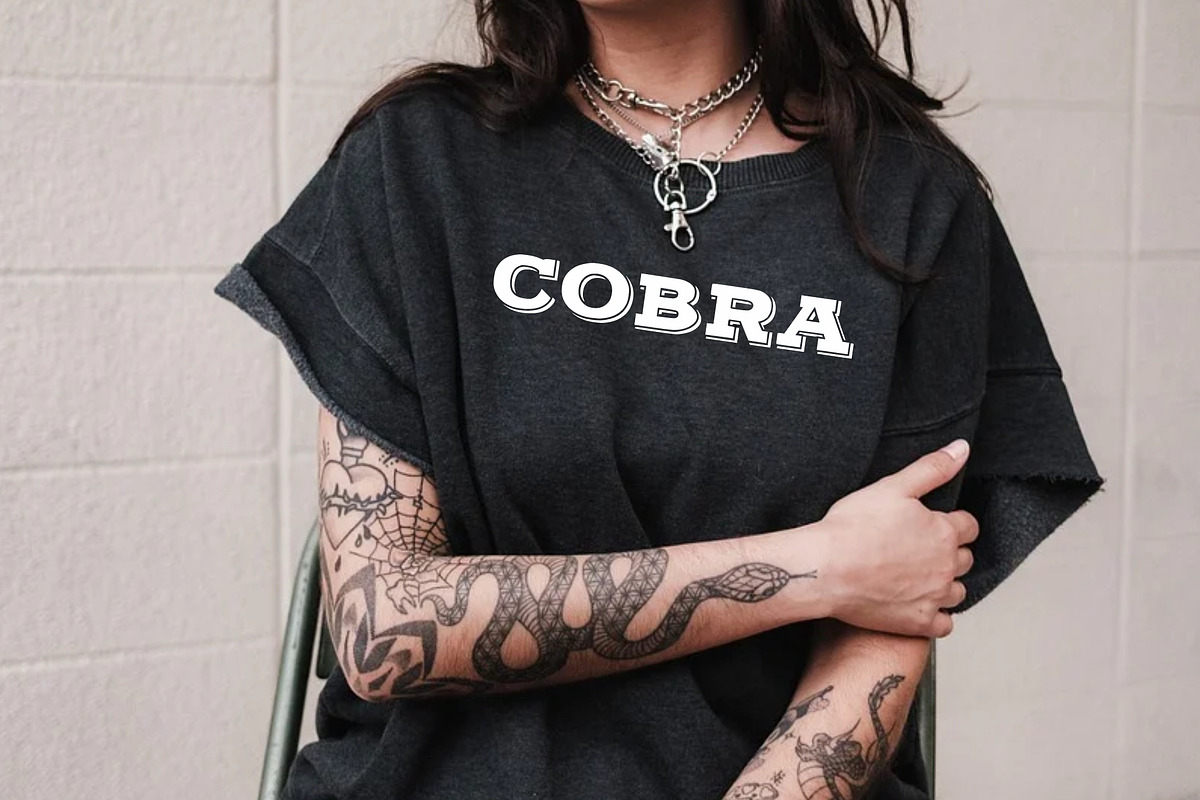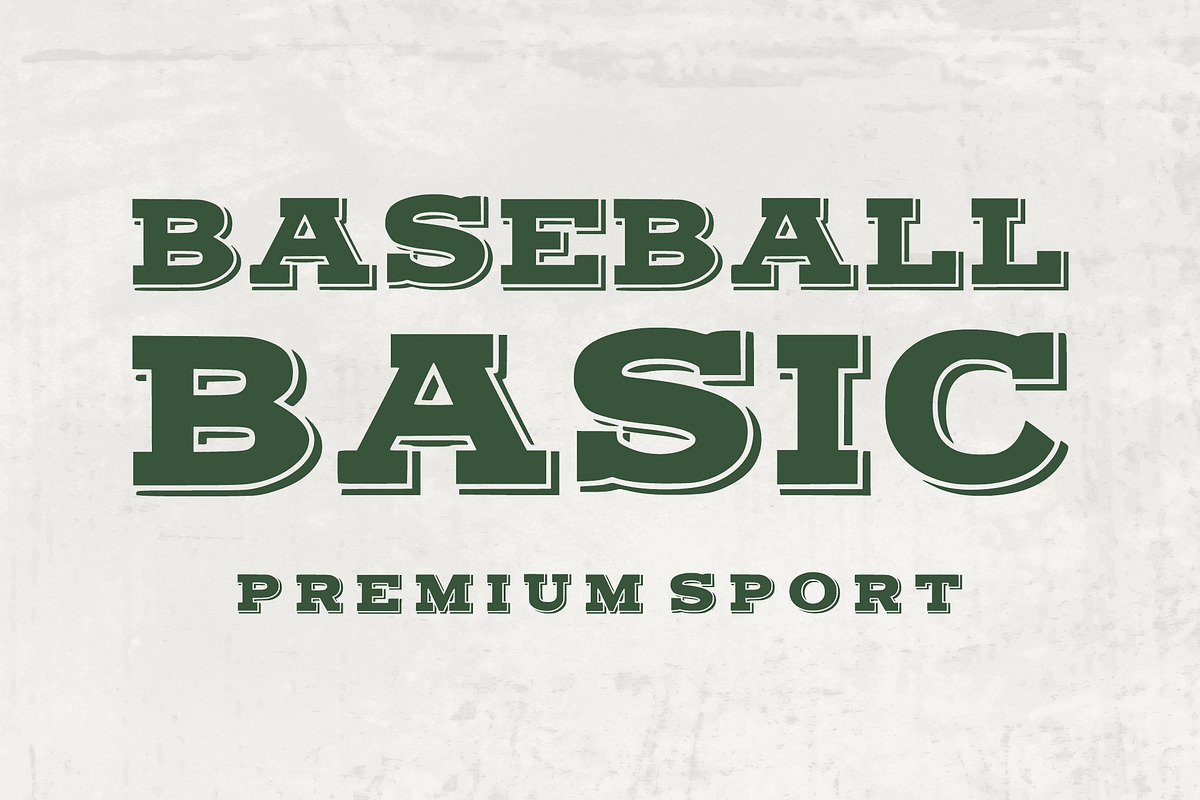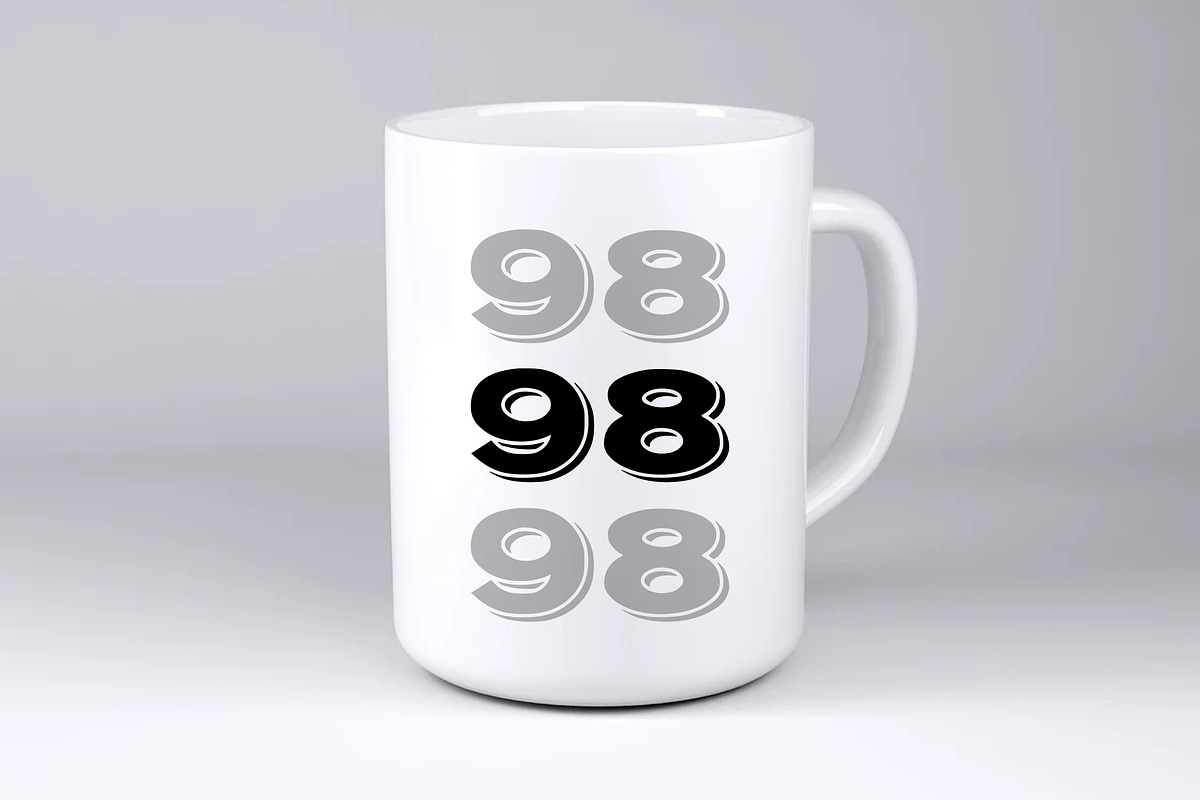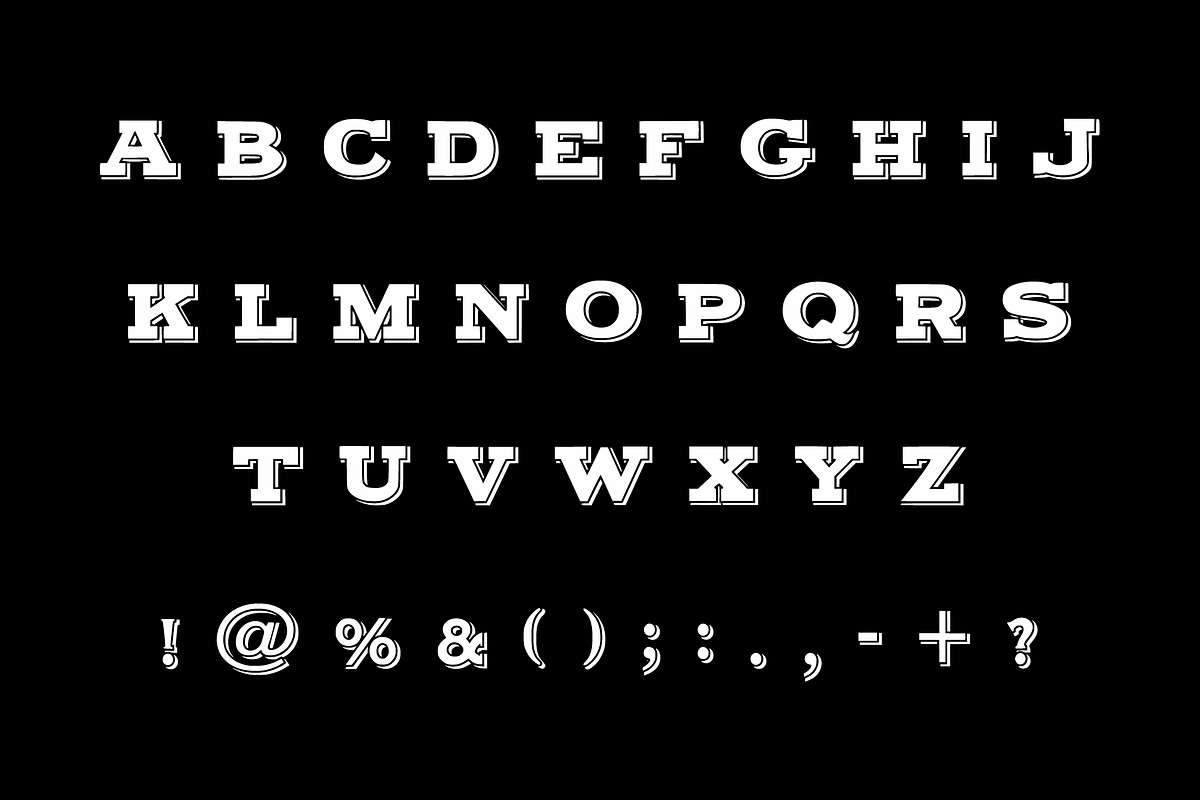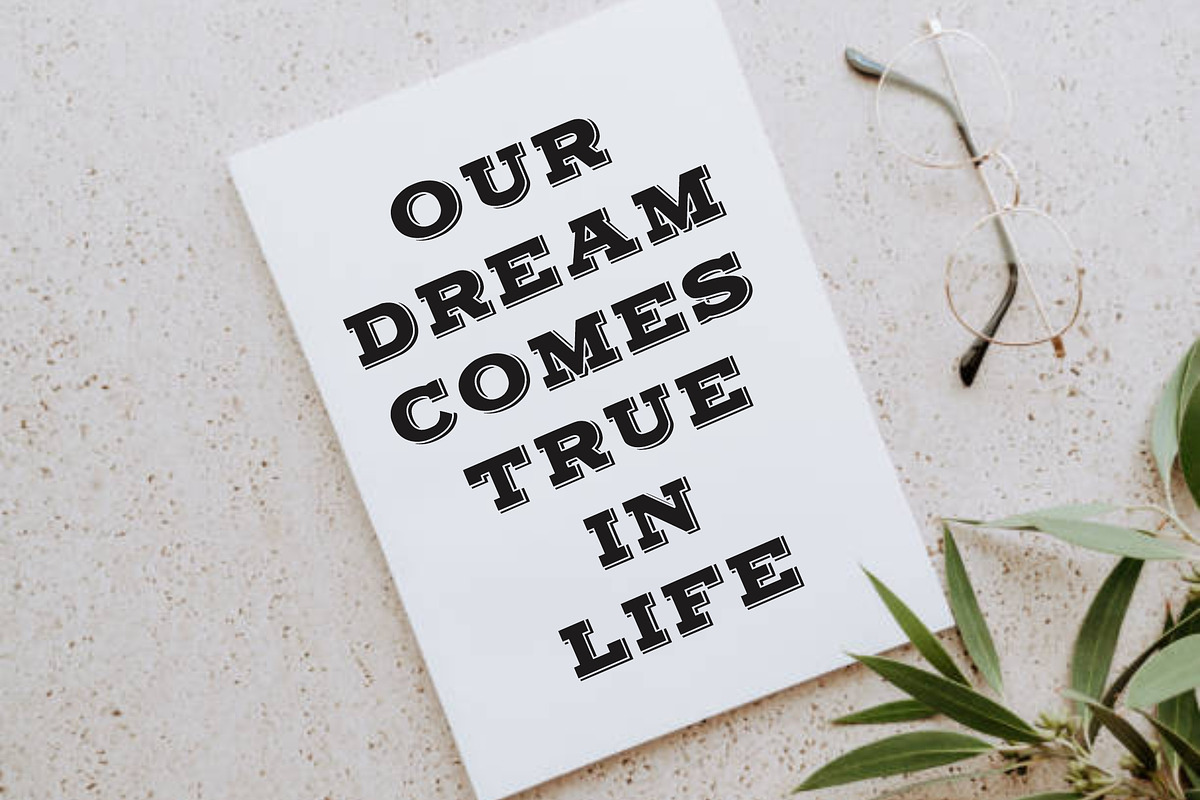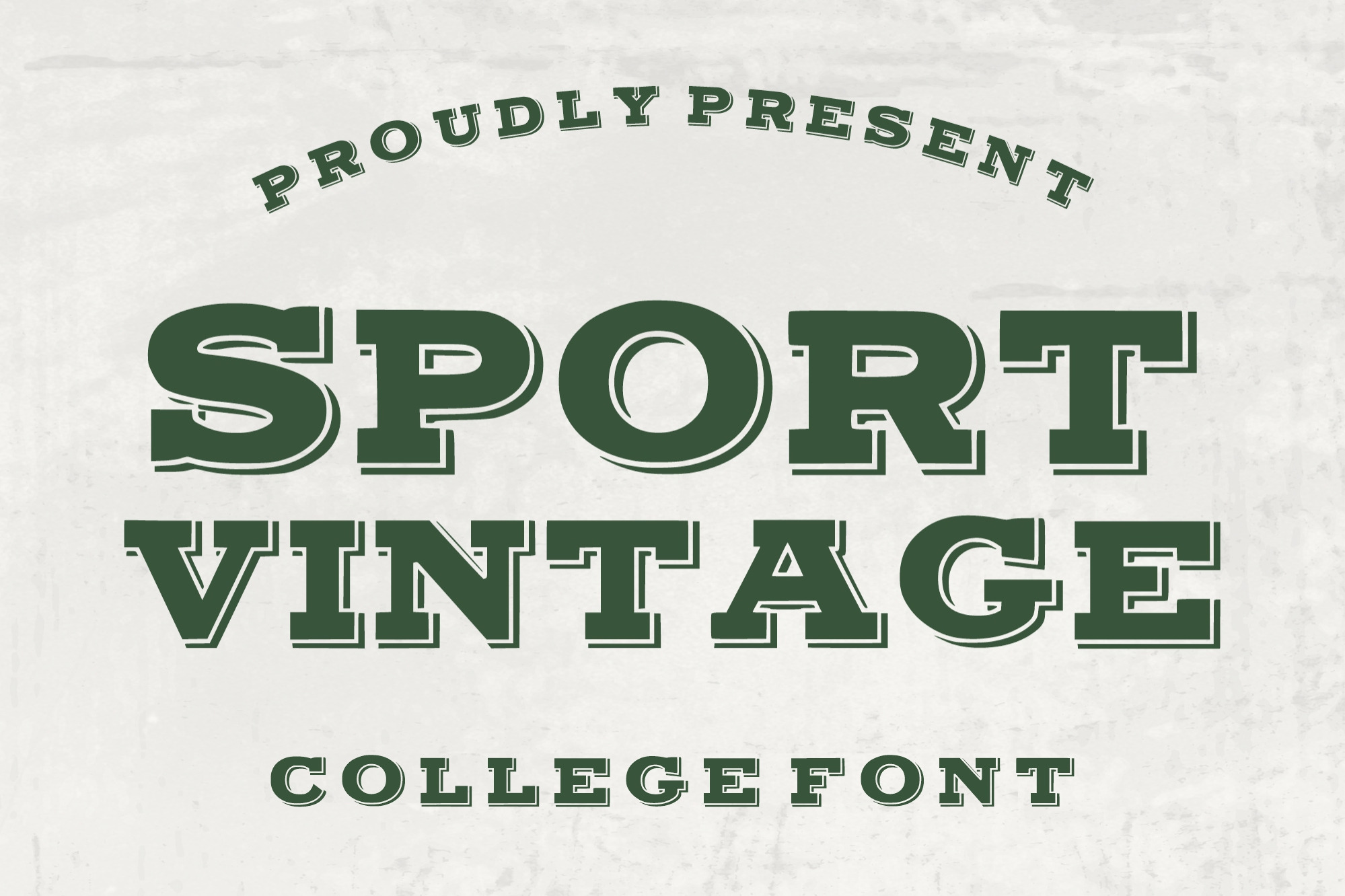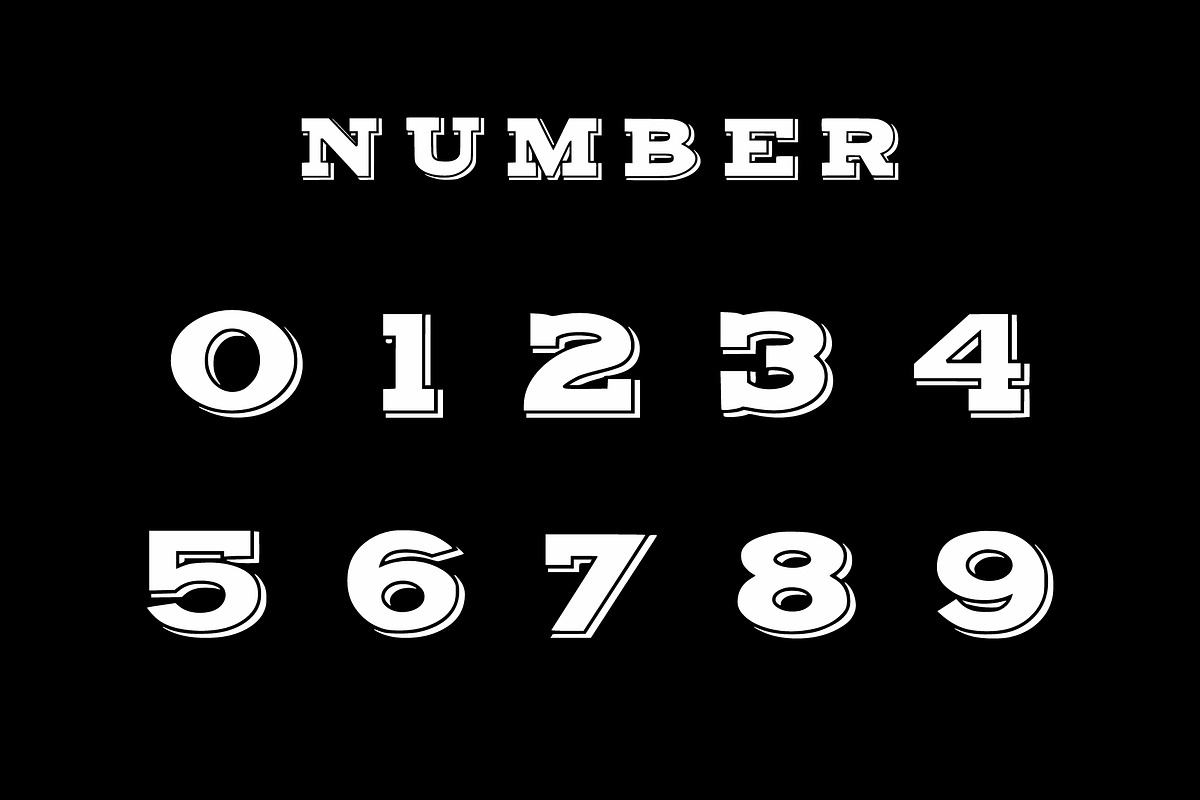
Sport Vintage - College Font
Sport Vintage is a bold collegiate display font designed to bring a classic varsity and athletic feel to your designs. Its heavy letterforms, vintage inline details, and subtle dimensional styling make it perfect for sports branding, team apparel, college merchandise, posters, badges, logos, and retro-inspired graphics.
Perfect for creating eye-catching designs with a strong college, varsity, sports, and vintage personality.
Sports & varsity logos
College & university designs
T-shirt and apparel graphics
Team merchandise
Baseball & football designs
Athletic branding
Posters & flyers
Badges & emblems
Retro typography
Stickers & labels
Signage